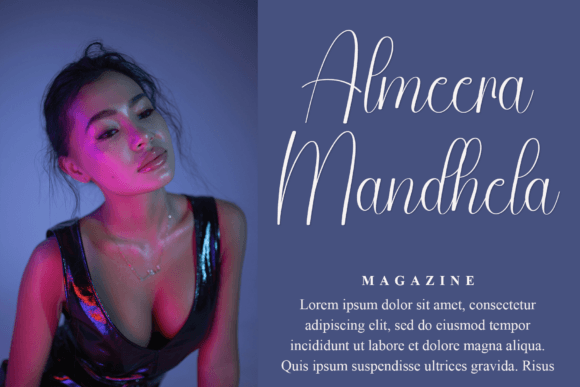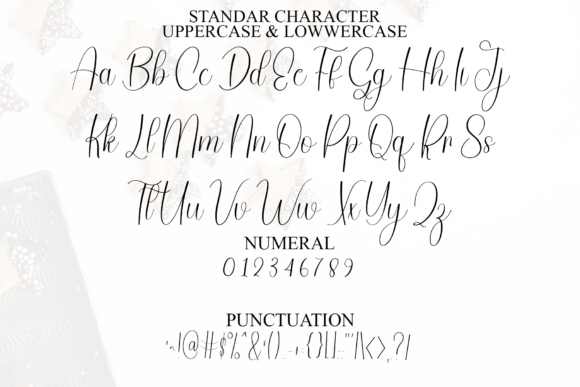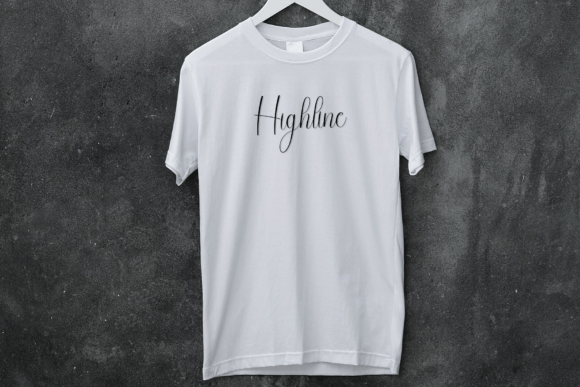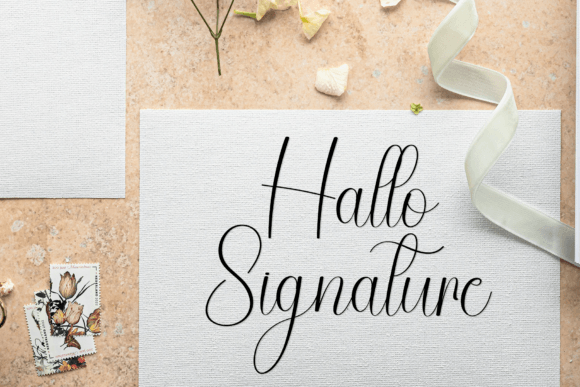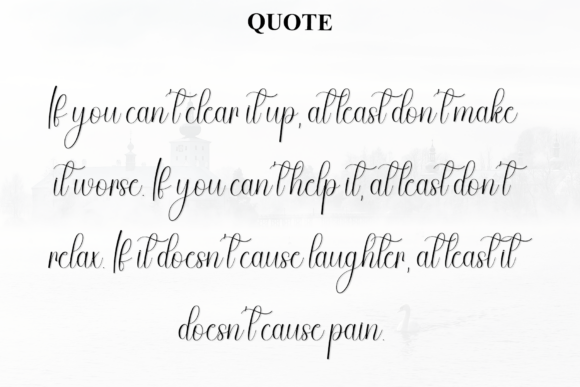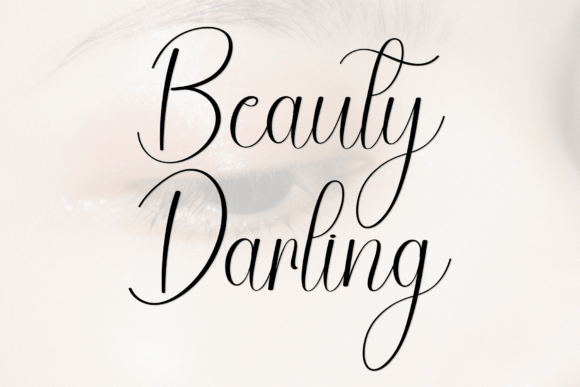
Introducing Beauty Gilrfriend Font: The Perfect Blend of Casual and Creative
Are you tired of using the same old fonts for your personal projects, invitations, and social media graphics? Look no further than the Beauty Gilrfriend Font, a charming and creative typeface that exudes warmth and friendliness. With its round, playful strokes, this font creates a relaxed and approachable feel that’s perfect for designers and crafters looking to add a personal touch to their work.
The Characteristics of Beauty Gilrfriend Font
Beauty Gilrfriend Font is a hand-drawn font that boasts a unique and playful aesthetic. Its round strokes and casual feel make it perfect for creating designs that are approachable, friendly, and fun. The font’s charming, hand-drawn aesthetic adds a fun and unique touch to any design, making it ideal for:
- Personal projects, such as photo albums, scrapbooking, and crafting
- Invitations, including birthday, wedding, and holiday invites
- Social media graphics, including Facebook posts, Instagram stories, and Twitter headers
What Makes Beauty Gilrfriend Font Special?
The Benefits of Using Beauty Gilrfriend Font
So why should you choose Beauty Gilrfriend Font for your next project? Here are just a few benefits:
- Unique and playful aesthetic: Beauty Gilrfriend Font adds a fun and unique touch to any design, setting it apart from more traditional fonts.
- Easy to read: The font’s round strokes and casual feel make it easy to read, even at smaller sizes.
- Versatile: Beauty Gilrfriend Font is perfect for a wide range of projects, from personal to commercial.
How to Use Beauty Gilrfriend Font in Your Designs
Using Beauty Gilrfriend Font in your designs is easy. Here are a few tips to get you started:
- Pair it with other fonts: Beauty Gilrfriend Font pairs well with other playful fonts, as well as more traditional serif and sans-serif fonts.
- Experiment with colors: The font’s playful aesthetic lends itself well to bright, bold colors.
- Use it for headings and titles: Beauty Gilrfriend Font is perfect for headings and titles, adding a fun and unique touch to your design.
Beauty Gilrfriend Font is a charming and creative typeface that’s perfect for designers and crafters looking to add a personal touch to their work. With its round, playful strokes and hand-drawn aesthetic, this font exudes warmth and friendliness, making it perfect for personal projects, invitations, and social media graphics. And with its compatibility with various software, you can easily incorporate Beauty Gilrfriend Font into your workflow.